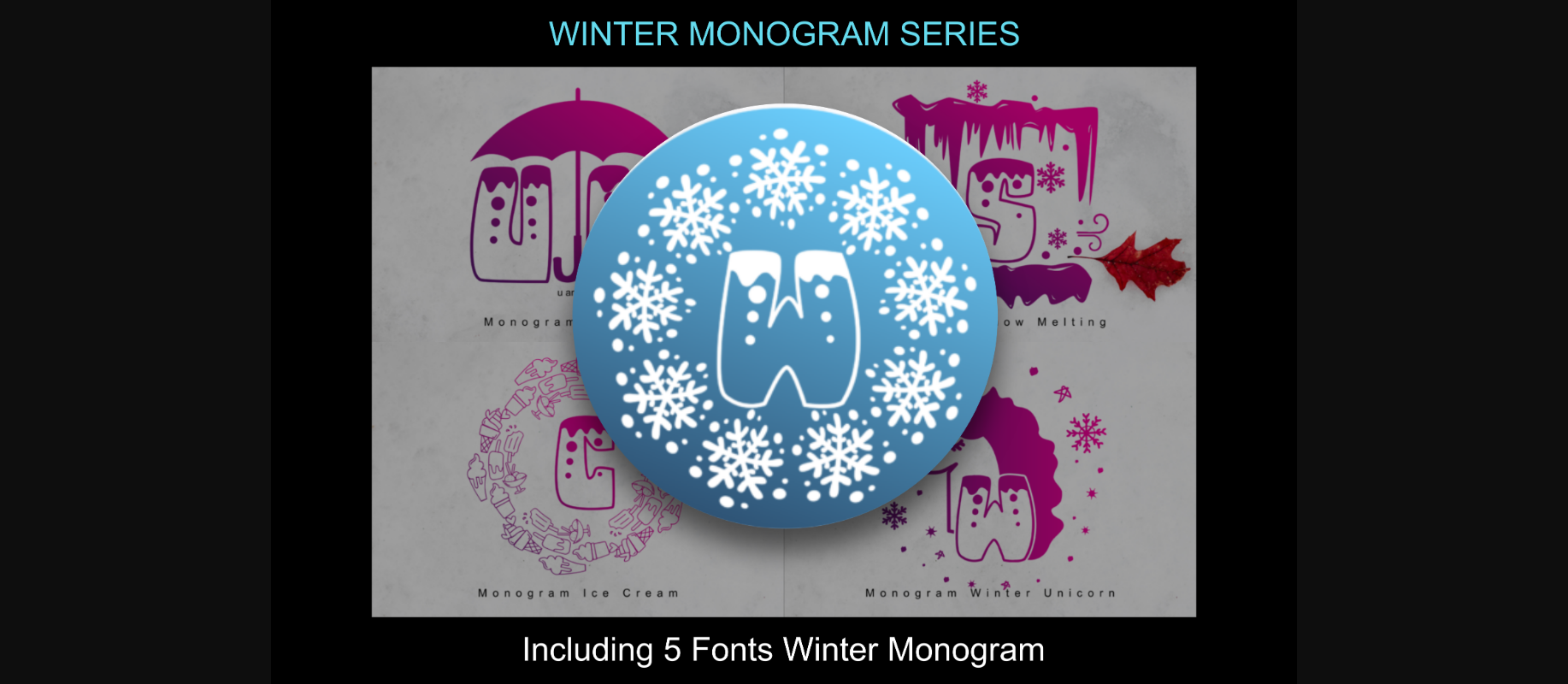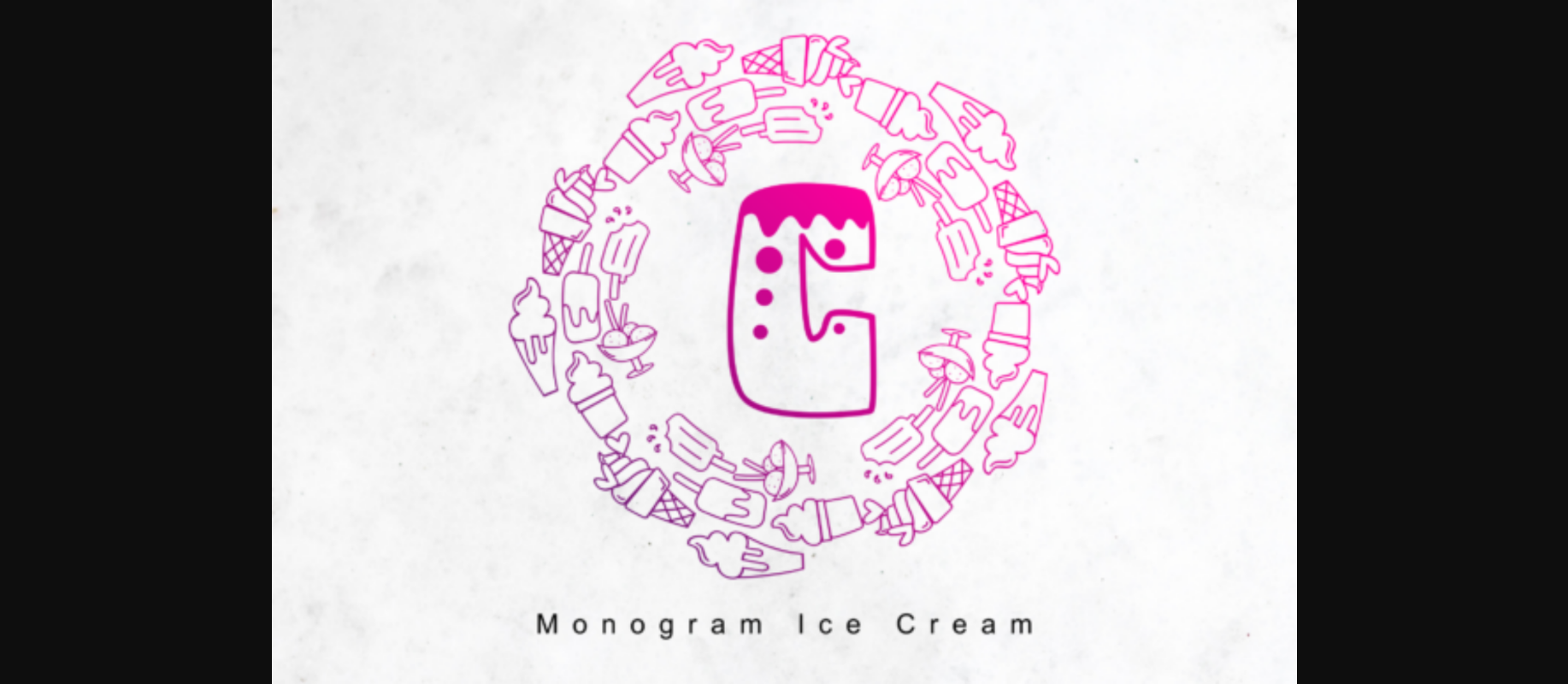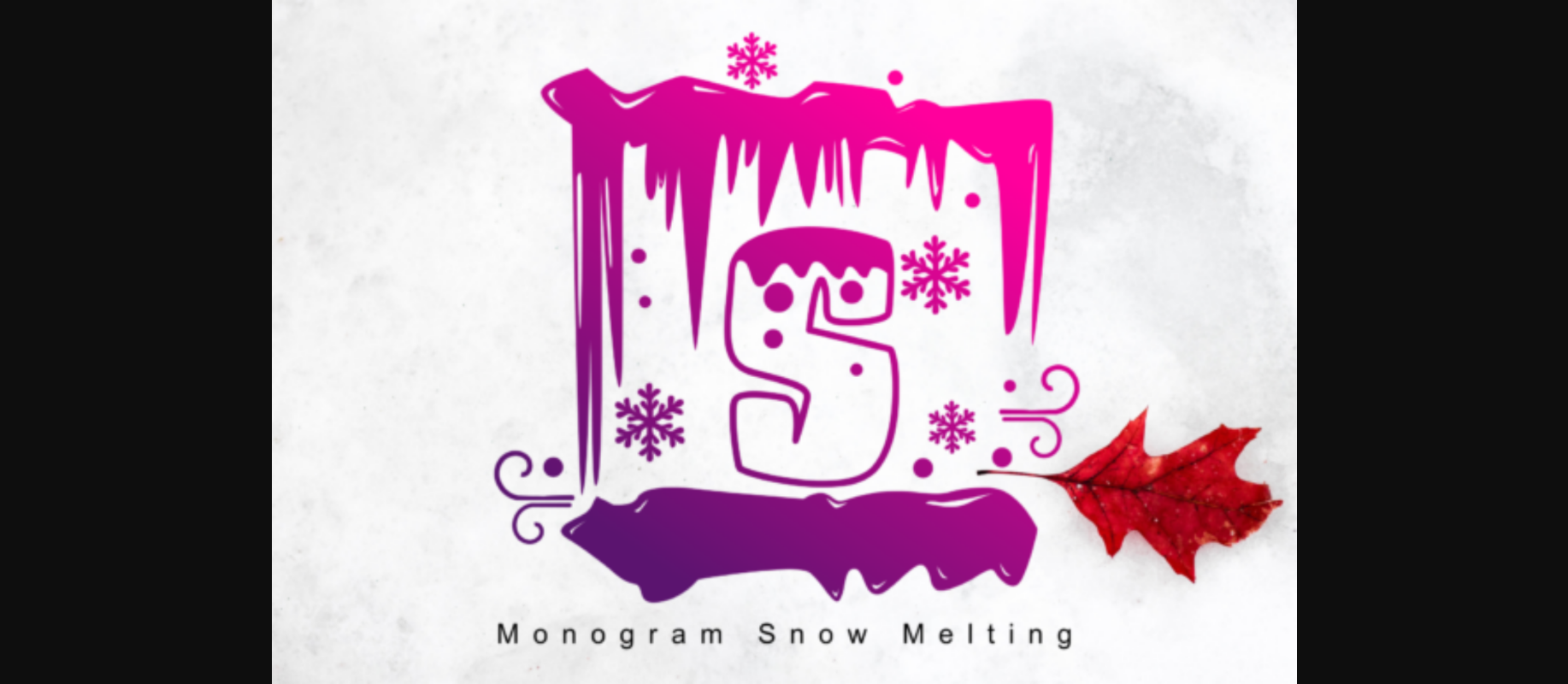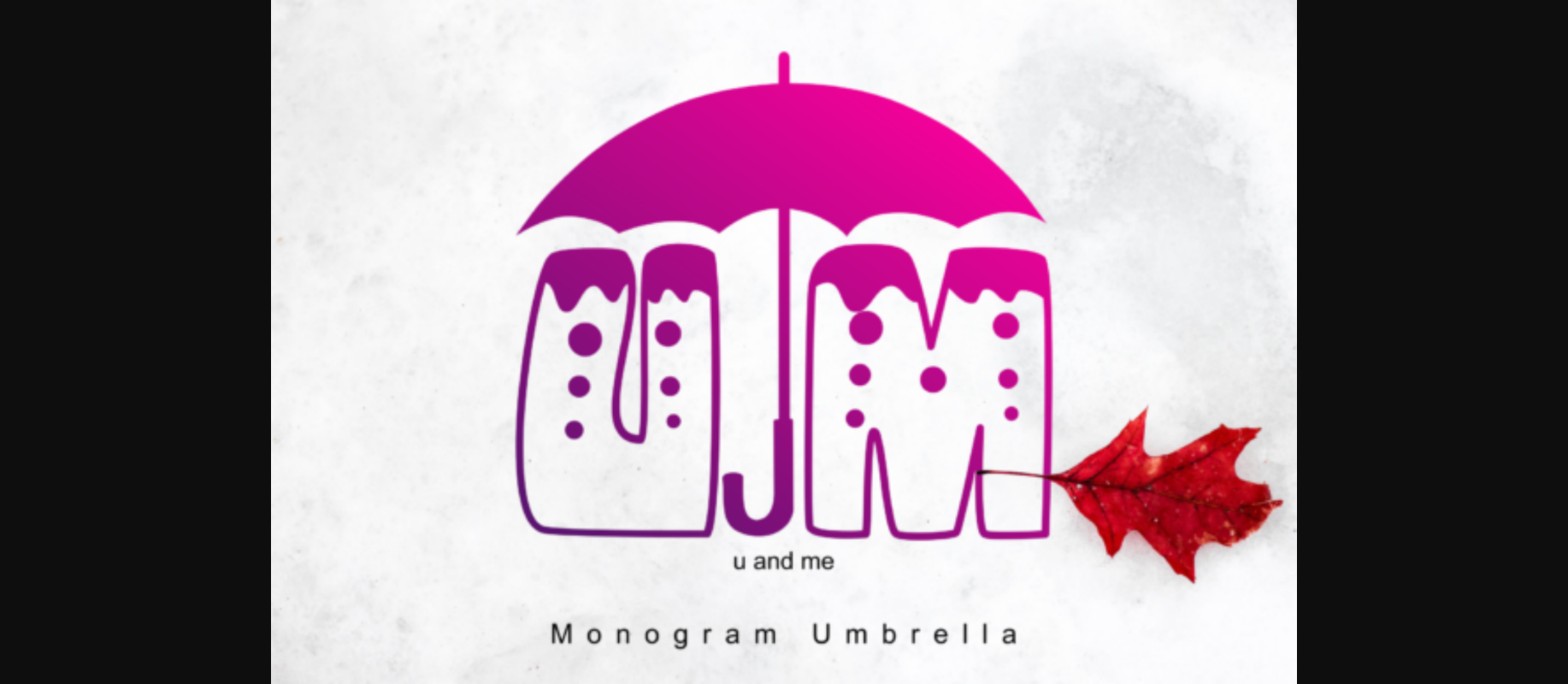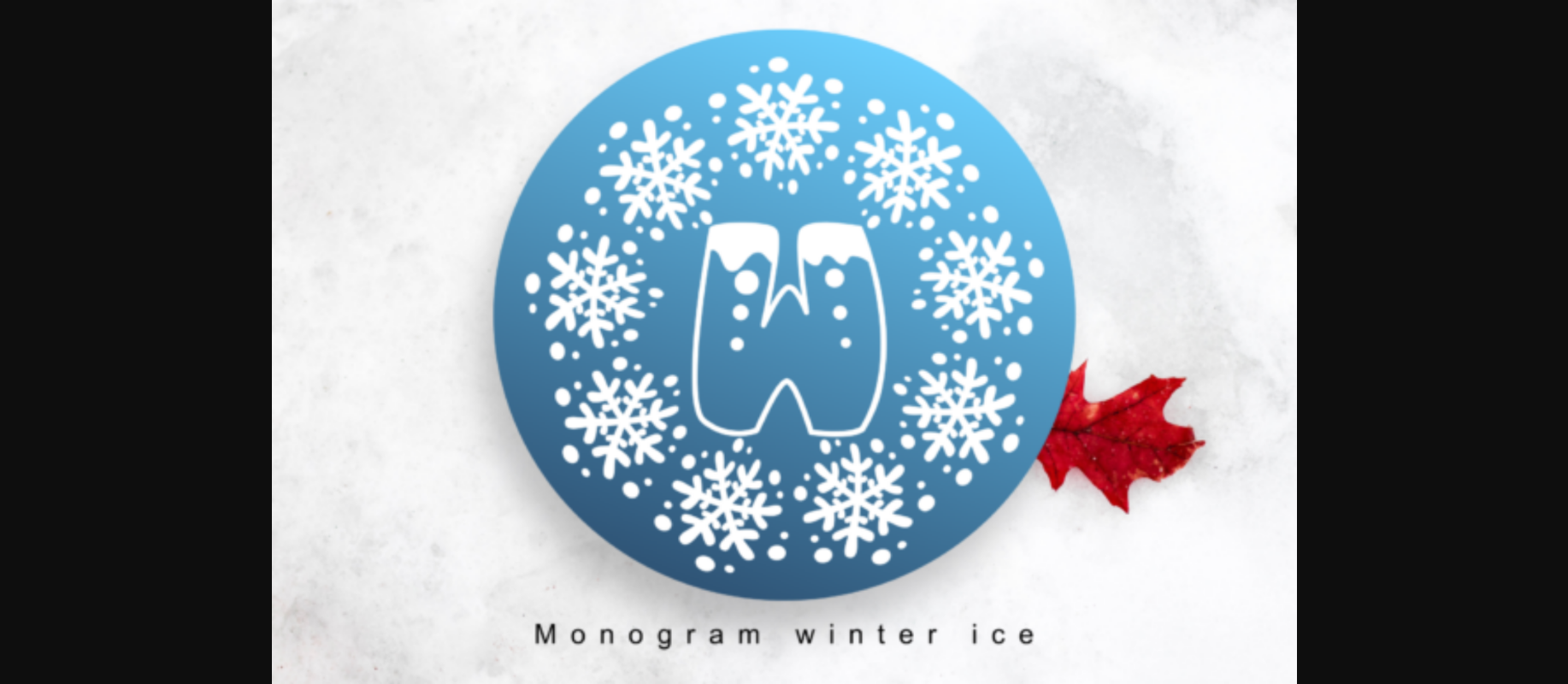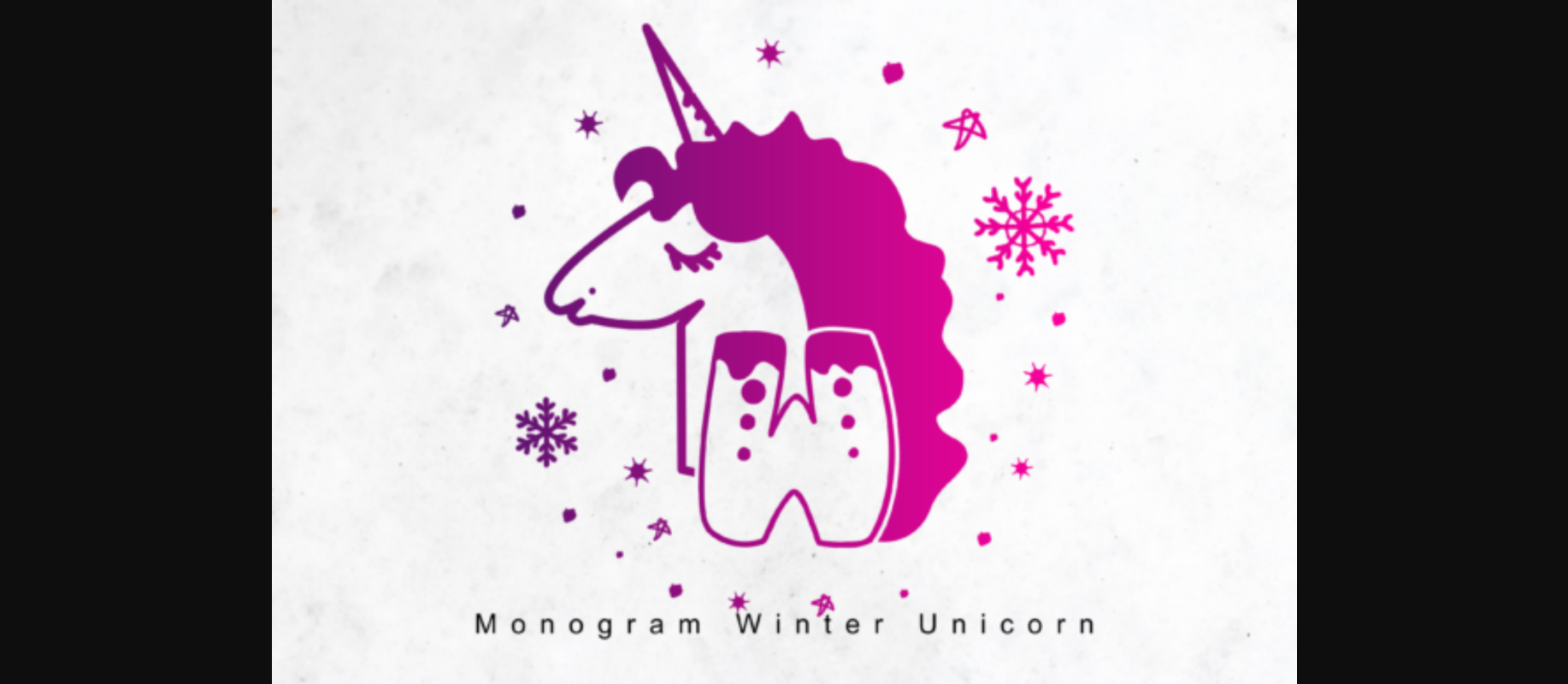
Winter Monogram Series Font
About Winter Monogram Series Font
Winter Monogram Series is a beautiful decorative font especially crafted for winter-themed works. Cute and adorable, it will make your creative projects more bright and cheerful! Add it with confidence to your designs, and it will bring them to their highest level!